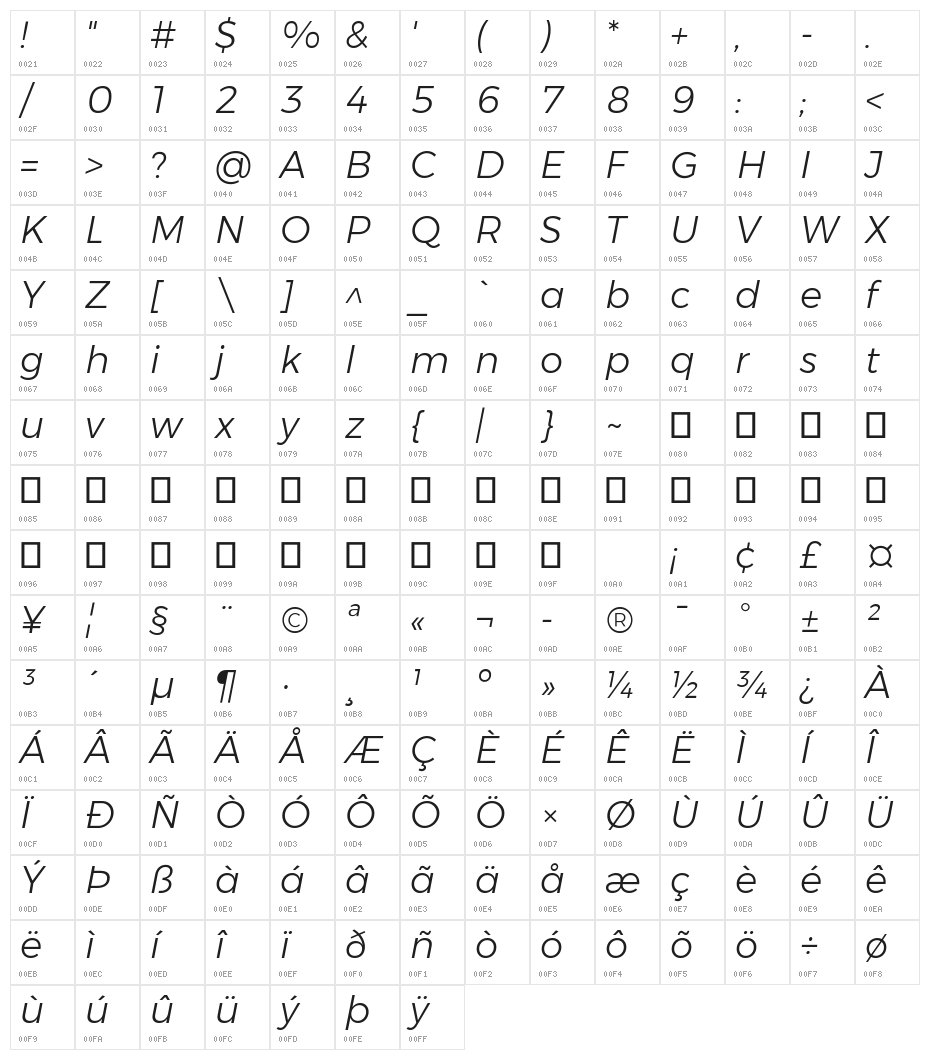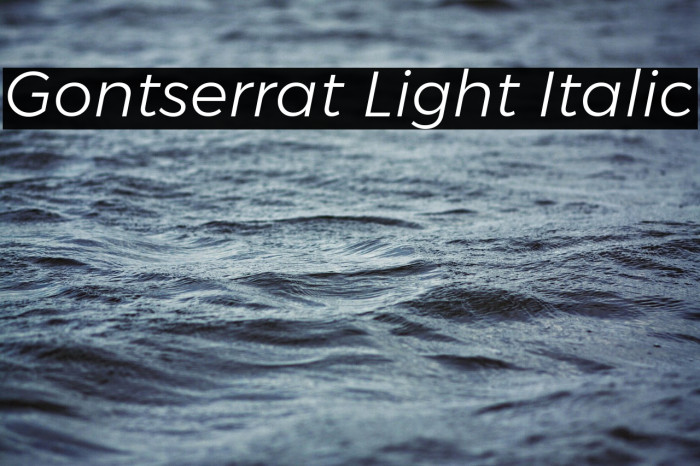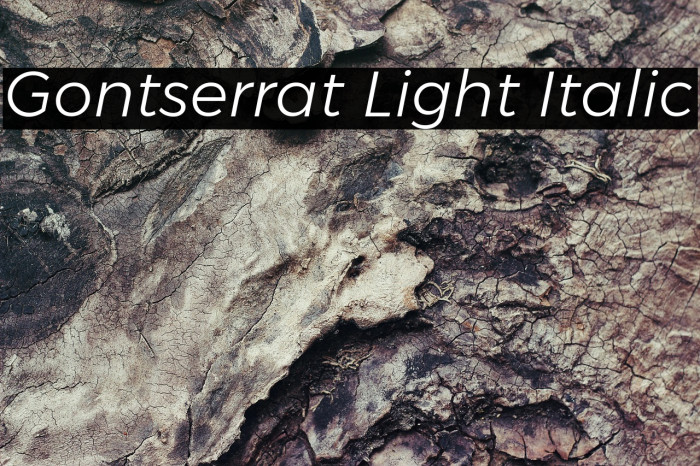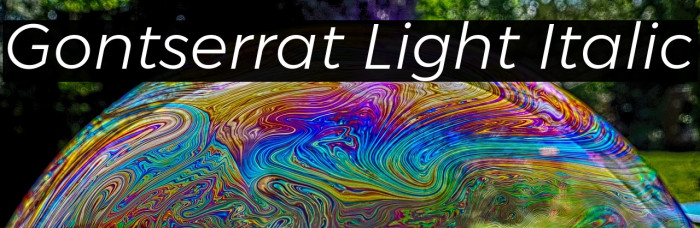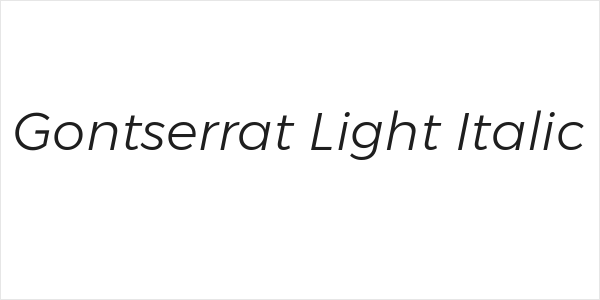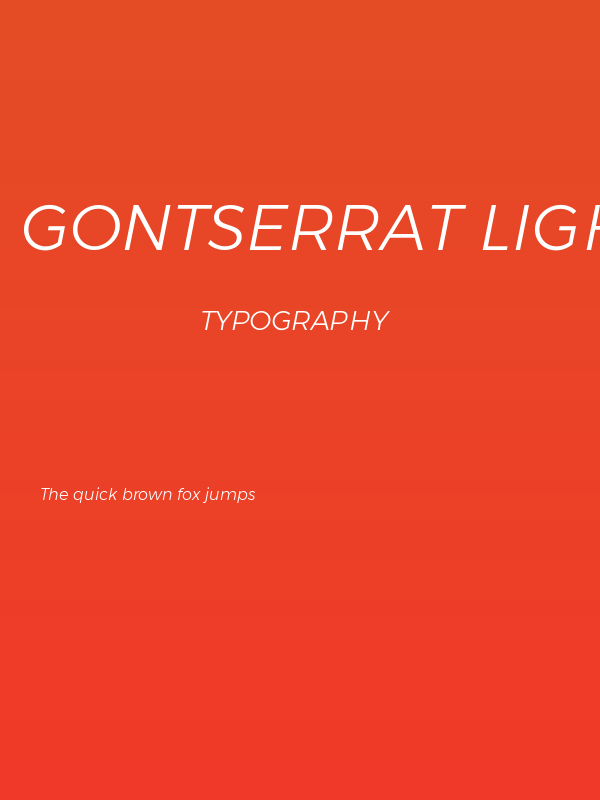
Gontserrat Light Italic Font
Gontserrat Light Italic Description
This font exhibits a sleek and modern design with a light weight and italic style. The characters are elegantly slanted, providing a sense of motion and fluidity. The letterforms are clean and geometric, with a sans-serif structure that emphasizes simplicity and readability. The numerals and special characters maintain the same aesthetic, ensuring consistency across different types of content. The overall appearance is refined and contemporary, making it suitable for a variety of design applications.
Proposed ProjectsIdeal for modern branding, editorial design, websites, and digital interfaces where a clean and elegant look is desired.